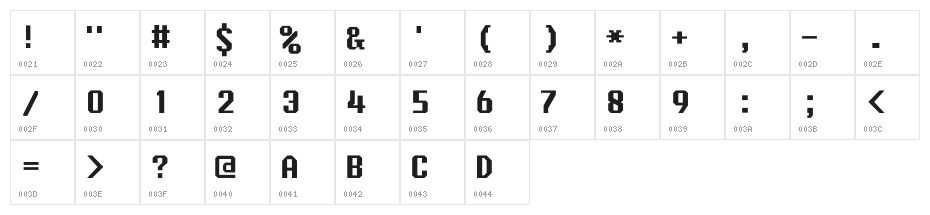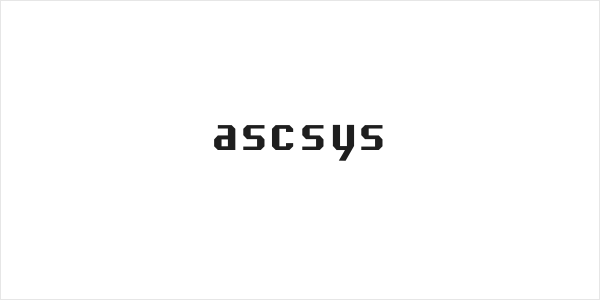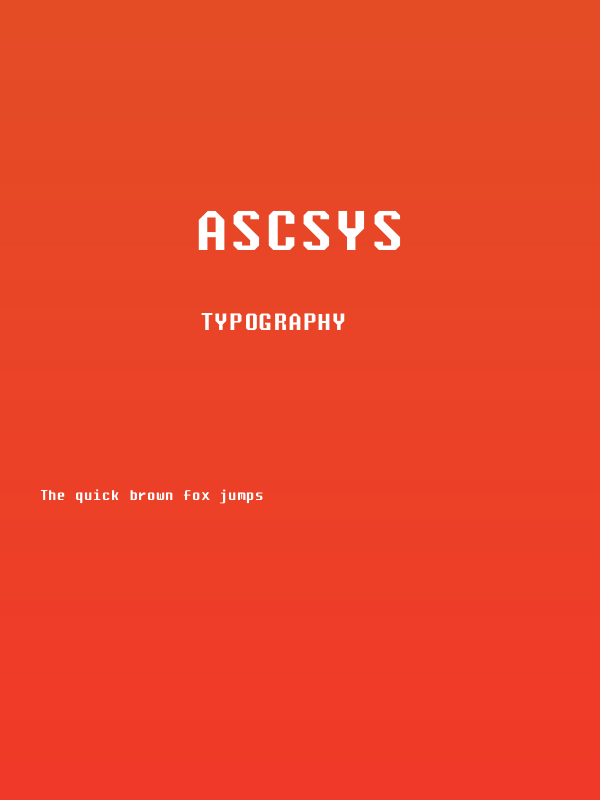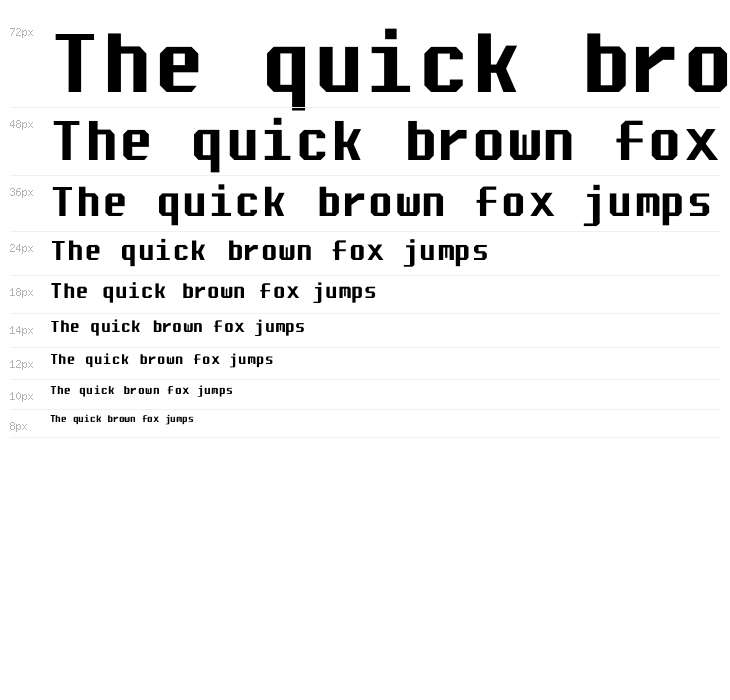
ascsys Font
ascsys Description
This font features a bold, geometric design with a strong, industrial feel. The characters are constructed with sharp angles and straight lines, giving it a modern and futuristic appearance. The uppercase letters are particularly striking, with a uniform height and width that create a cohesive look. The lowercase letters maintain the same geometric style, providing consistency throughout the typeface. The numerals are equally bold and angular, ensuring readability and visual impact. Special characters are designed to match the overall aesthetic, making this font versatile for various applications.
| Proposed Projects | Ideal for technology branding, video game titles, posters, and futuristic designs. |